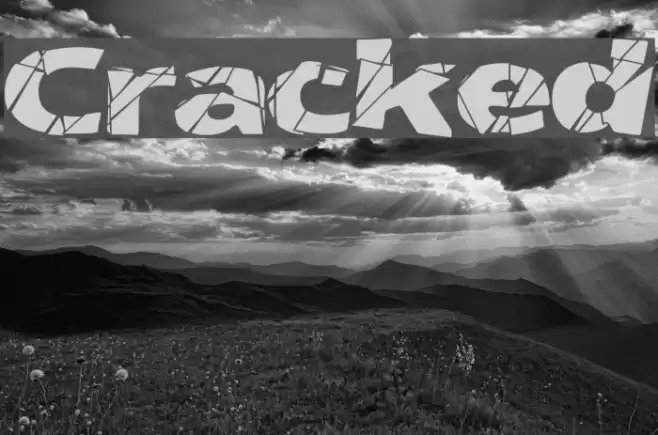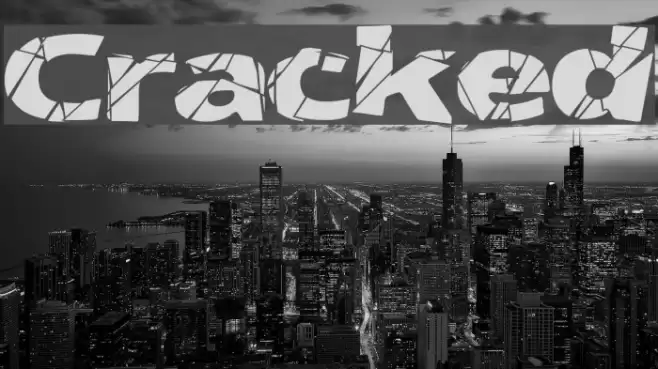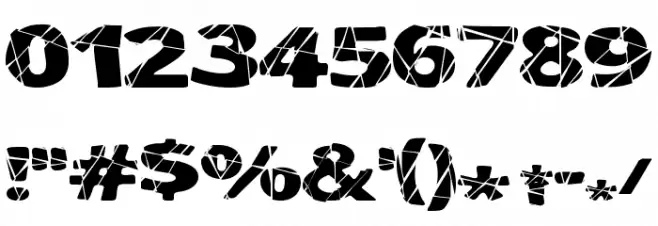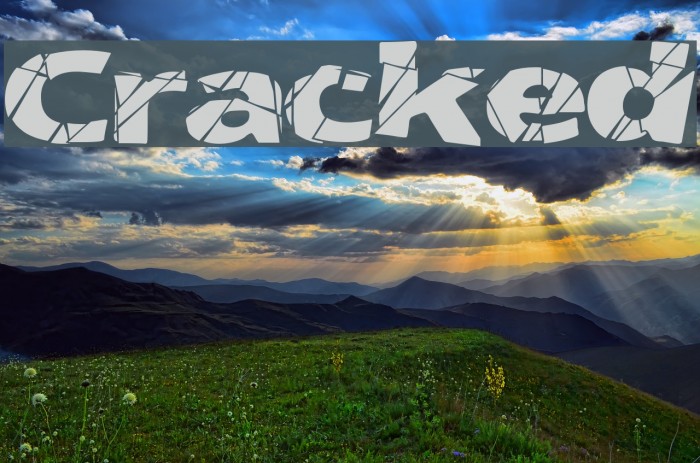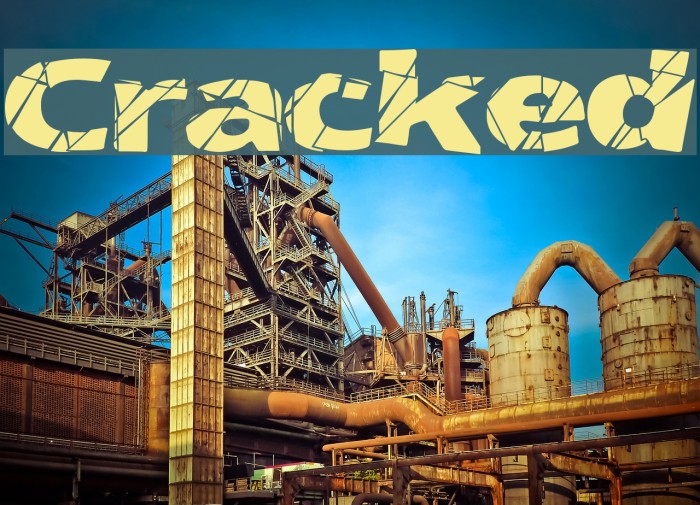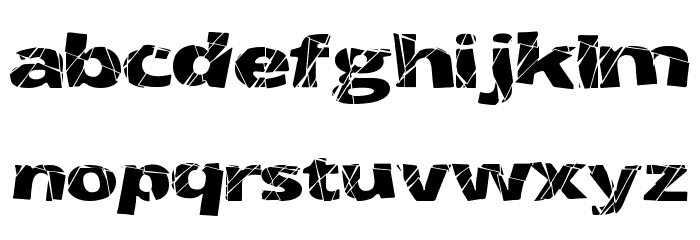
Cracked Font
Cracked Description
This font features a bold, distressed appearance with a cracked texture running through each character, giving it a rugged and edgy look. The uppercase and lowercase letters, as well as numbers and special characters, all share this unique design, making it ideal for projects that require a strong visual impact. The irregular pattern of cracks adds a dynamic and chaotic feel, perfect for themes related to destruction, rebellion, or urban environments. Despite its decorative nature, the characters remain legible, ensuring that the message is conveyed effectively.
A bold, cracked texture font with a rugged, edgy appearance from Distorted Eroded fonts.
- Proposed Projects: Ideal for album covers, event posters, graffiti art, and branding for extreme sports or urban-themed businesses.